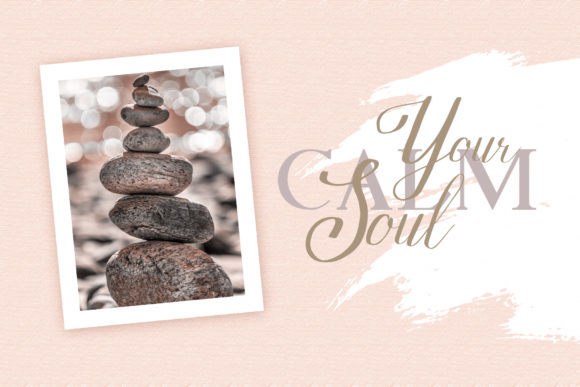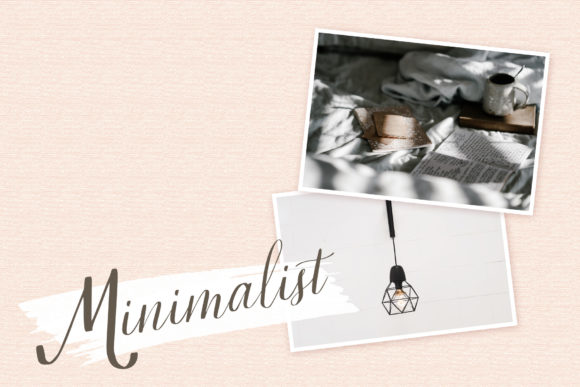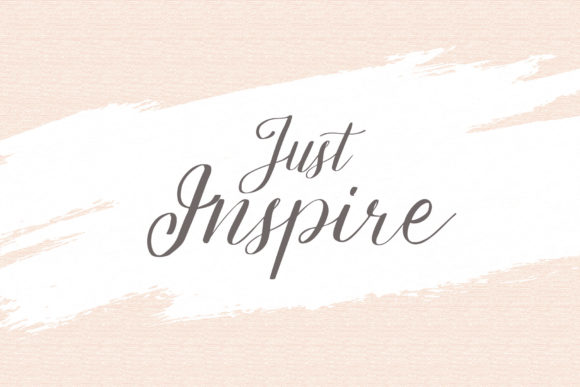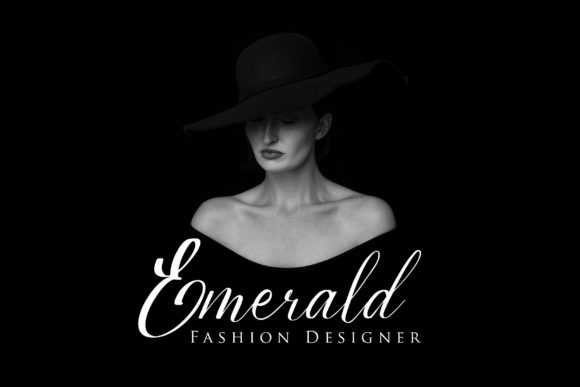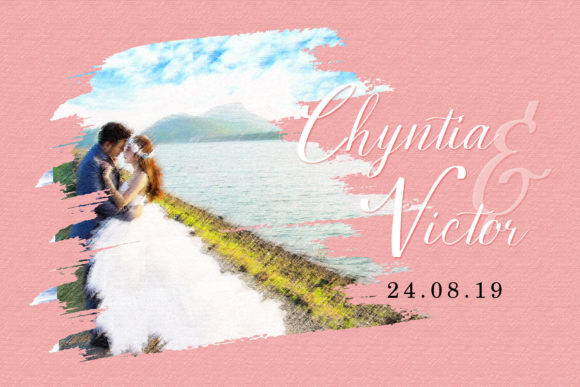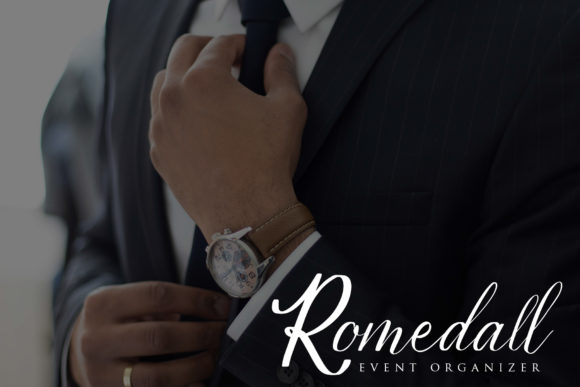
Introducing Estella Font: A Playful Handwritten Script Font for Your Design Projects
Are you looking for a font that can add a touch of personality and whimsy to your design projects? Look no further than Estella Font, a beautiful handwritten script font that is perfect for a variety of creative endeavors. In this article, we’ll take a closer look at Estella Font, its features, and how you can use it to elevate your designs.
What is Estella Font?
Estella Font is a handwritten script font that is designed to be both playful and elegant. Its unique character set makes it a great choice for a wide range of design projects, from branding and packaging to invitations and social media graphics. With its flowing lines and curvaceous strokes, Estella Font is sure to add a touch of sophistication and whimsy to any design.
Key Features of Estella Font
So, what makes Estella Font so special? Here are just a few of its key features:
- Playful character: Estella Font has a unique and playful character that is sure to make your designs stand out.
- Handwritten script: This font is designed to look like it was written by hand, giving it a personal and organic feel.
- Versatile: Estella Font is a versatile font that can be used for a wide range of design projects, from formal to informal.
- Elegant: Despite its playful nature, Estella Font is also an elegant font that can add a touch of sophistication to any design.
How to Use Estella Font in Your Design Projects
Estella Font is a versatile font that can be used in a wide range of design projects. Here are just a few ideas to get you started:
- Branding and packaging: Use Estella Font to create unique and eye-catching branding and packaging designs.
- Invitations and stationery: Add a touch of elegance and whimsy to your invitations and stationery with Estella Font.
- Social media graphics: Use Estella Font to create engaging and shareable social media graphics.
- Web design: Add a touch of personality to your website with Estella Font, perfect for headings, titles, and more.
Tips for Getting the Most Out of Estella Font
Here are a few tips for getting the most out of Estella Font:
- Experiment with different sizes and colors: Estella Font looks great in a variety of sizes and colors, so don’t be afraid to experiment and find the perfect combination for your design.
- Pair it with other fonts: Estella Font pairs well with a variety of other fonts, so try combining it with other fonts to create a unique and interesting design.
- Use it consistently: To get the most out of Estella Font, use it consistently throughout your design project.
Estella Font is a beautiful handwritten script font that is perfect for designers and crafters looking to add a touch of personality and whimsy to their design projects. With its playful character, elegant lines, and versatile nature, Estella Font is sure to become a go-to font in your design arsenal. So why not give it a try and see how it can elevate your designs?
Whether you’re a seasoned designer or just starting out, Estella Font is a great choice for any design project. Its unique character and elegant lines make it perfect for a wide range of creative endeavors, from branding and packaging to invitations and social media graphics. So why wait? Download Estella Font today and start creating beautiful, eye-catching designs that will leave a lasting impression.